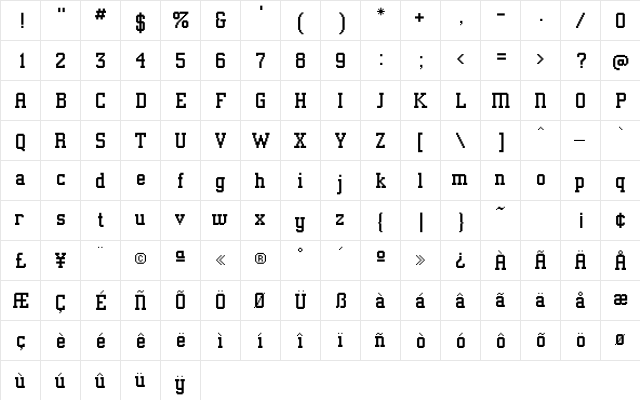
Athens Classic Medium
Design Context for Athens Classic Typeface
Athens Classic wears its vintage influences proudly, with letterforms that recall mid-century signage, classic packaging, and nostalgia-driven design.
Font Pairing: Combine Athens Classic with a simple slab or neutral sans — period-accurate companions reinforce the vintage feel without competing for attention.
Pro Tip: Use Athens Classic for headlines and pull quotes rather than body copy — its personality is best appreciated in short, focused bursts.